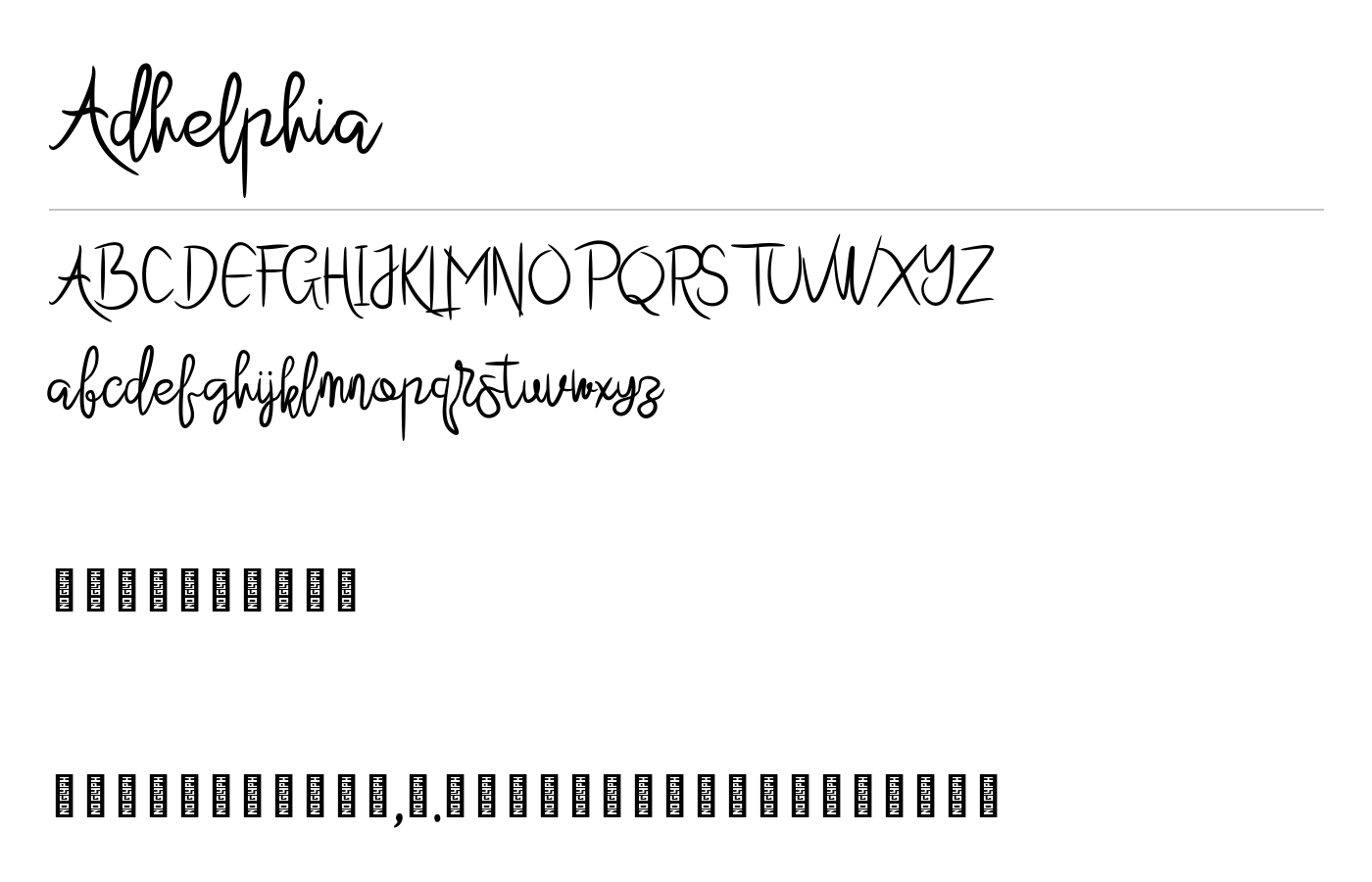
Adhelpia is a playful and elegant script font with a handwritten feel, characterized by its tall, slender letterforms and delicate, flowing strokes. Its unique mix of sharp and rounded elements creates a charming and approachable style, ideal for creative branding, invitations, and personal projects that seek a friendly yet refined touch. This font works well in headlines and decorative uses where personality and individuality are desired.
Adhelpia Font
About Adhelpia Font
| Font family | Adhelpia Font |
| Designer | NoerHadi |